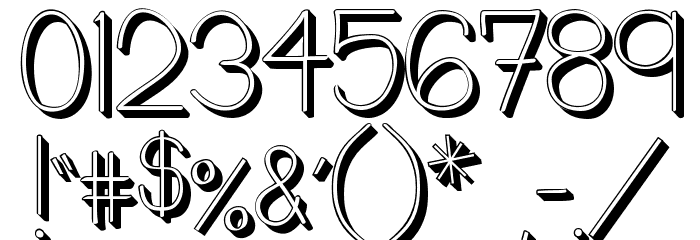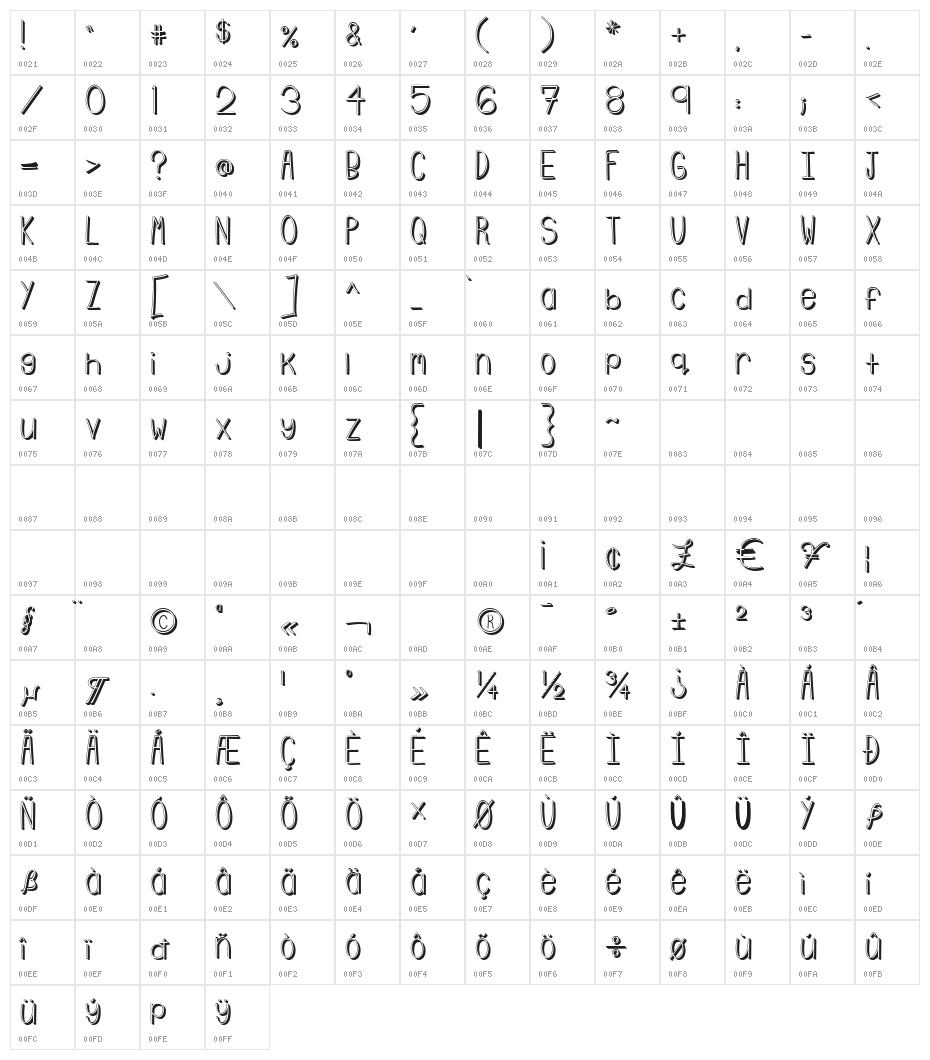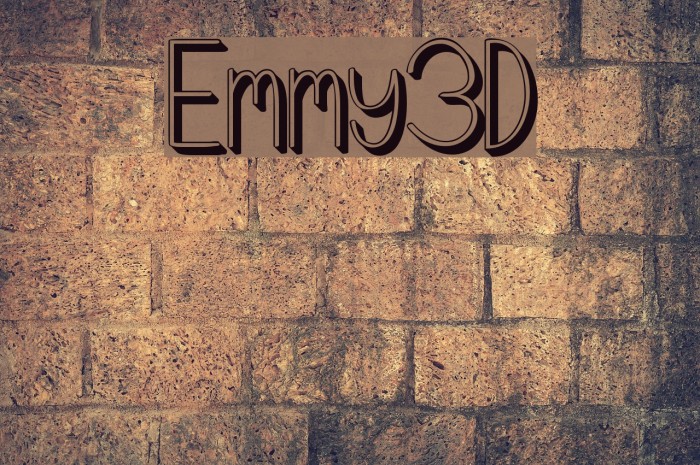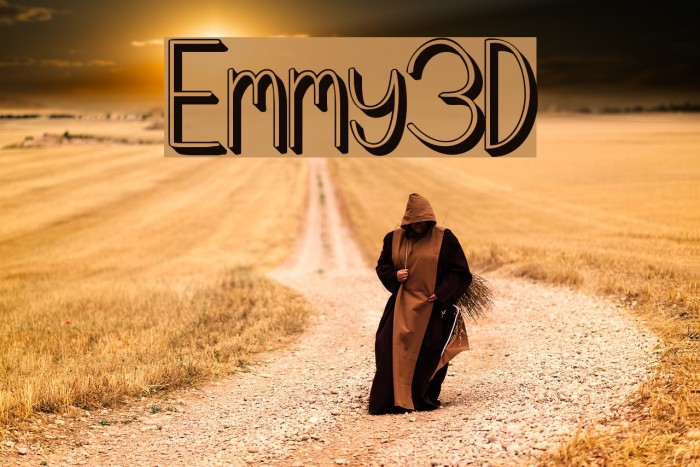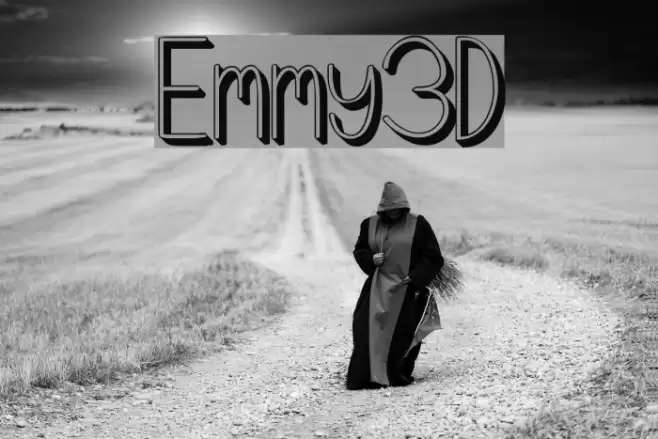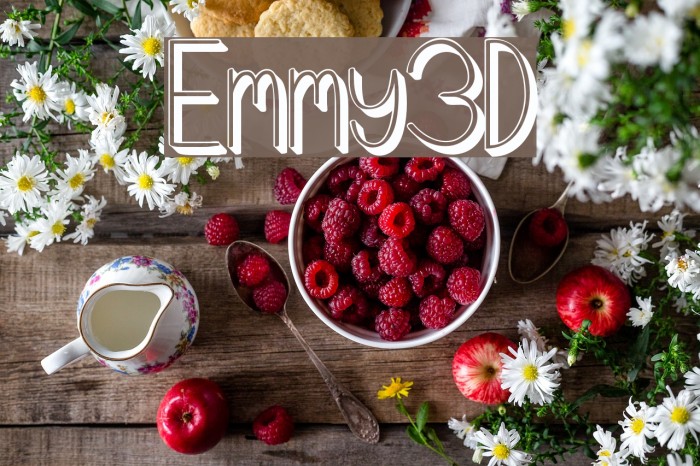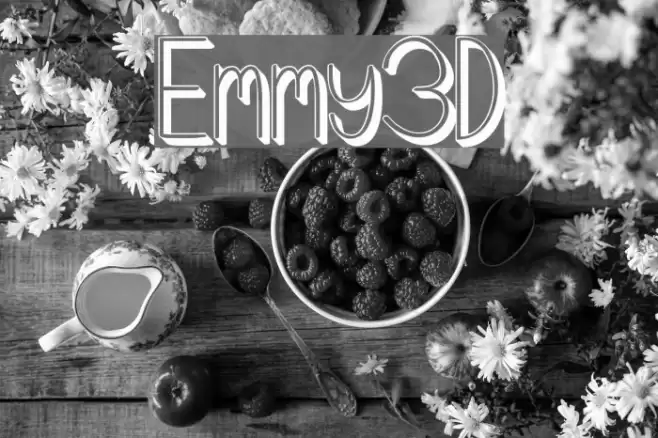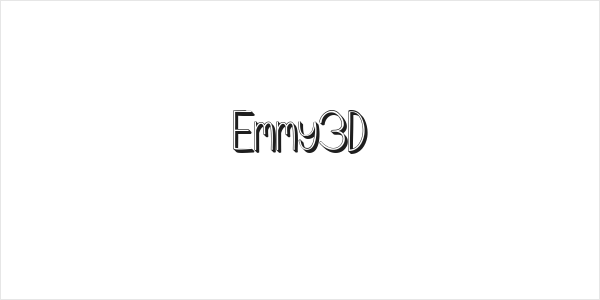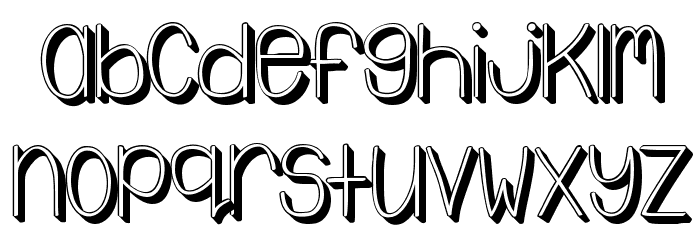
Emmy3D Font
Emmy3D Description
This font features a bold, three-dimensional style with a playful and dynamic appearance. The letters have a thick outline that creates a shadow effect, giving them a sense of depth and movement. The uppercase and lowercase characters maintain a consistent style, with rounded edges and a slightly condensed form. The numbers and special characters follow the same design principles, ensuring uniformity across all glyphs. This font's unique 3D effect makes it stand out, making it suitable for eye-catching designs.
| Proposed Projects | Ideal for posters, headlines, logos, and any project requiring a bold and eye-catching typeface. |